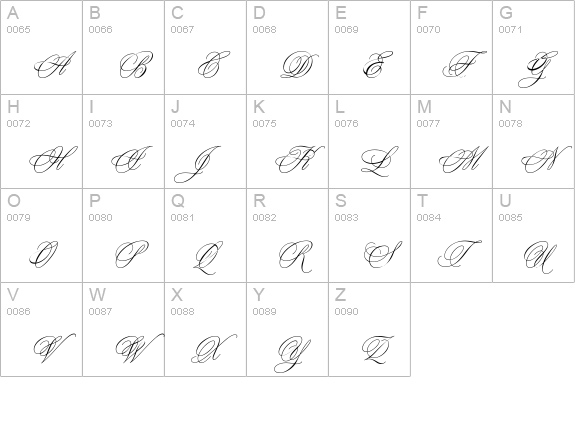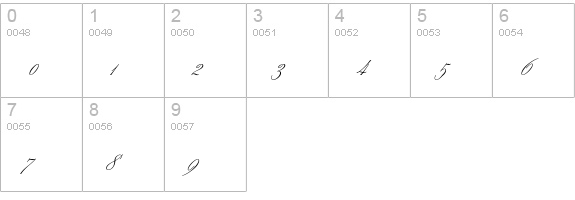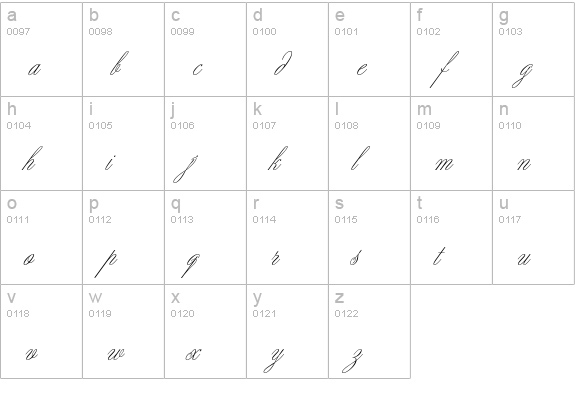
YoungBaroquePlain Font Details
YoungBaroquePlain font is a stunning display typeface that effortlessly combines elements of youthfulness and classic Baroque design. With its intricate details and elegant curves, this font brings a touch of sophistication to any project while still maintaining a modern and fresh feel. The clean lines and simplicity of YoungBaroquePlain make it versatile for a wide range of applications, from branding to editorial design. Best of all, YoungBaroquePlain is available for free download at FontsMarket.com. Whether you're a designer looking to add a touch of elegance to your work or a creative looking for a unique font to make your projects stand out, YoungBaroquePlain is the perfect choice. Download it today and elevate your designs with this exquisite typeface.